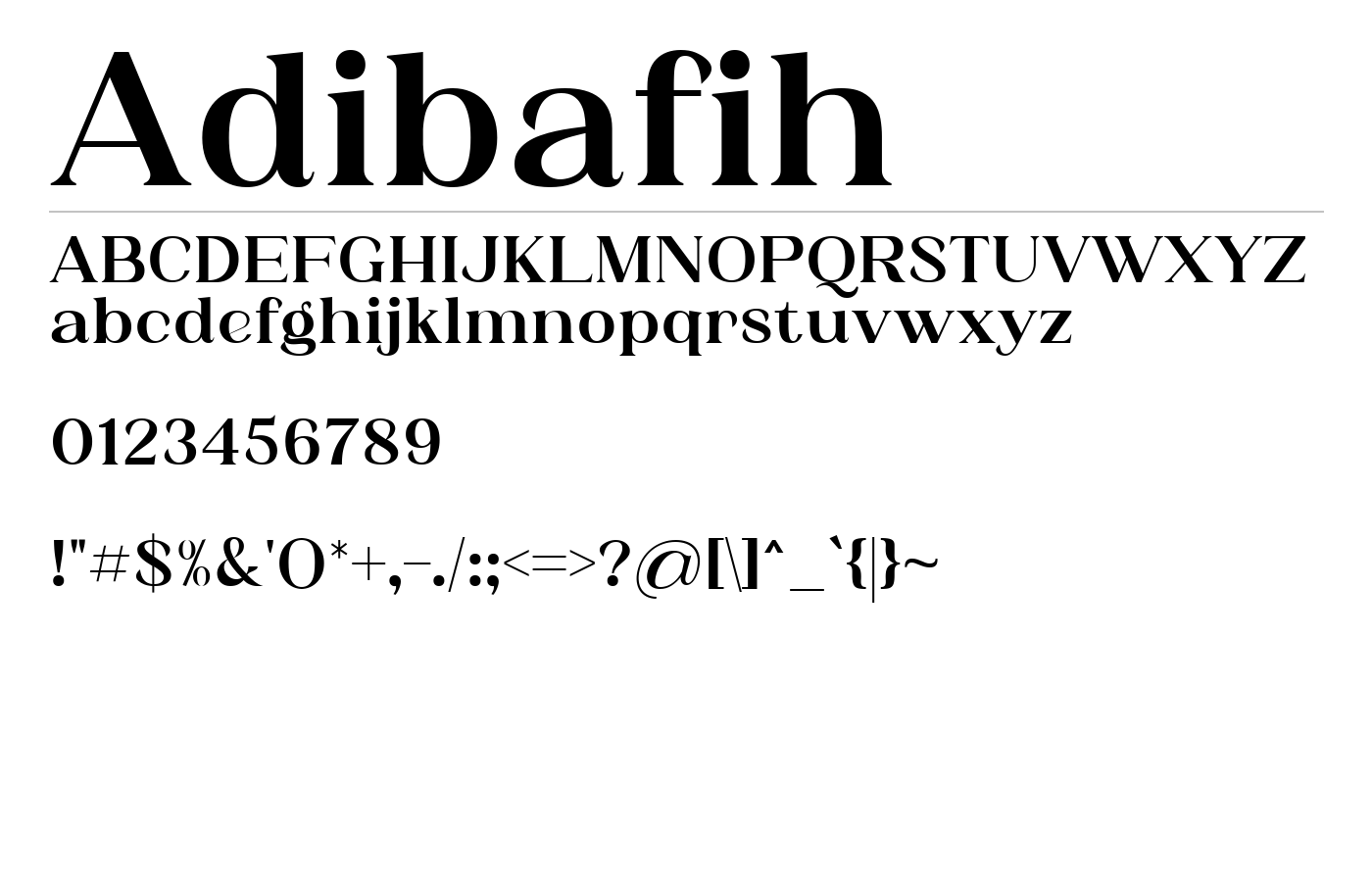
Adibafih is a refined serif font with a classic and elegant feel, featuring strong contrast between thick and thin strokes and delicate, bracketed serifs that add sophistication. Its moderate x-height and balanced proportions make it suitable for both display and body text, while its traditional letterforms convey a timeless, professional tone. This font excels in editorial design, luxury branding, and formal communications where clarity and style are essential.
Adibafih Font
About Adibafih Font